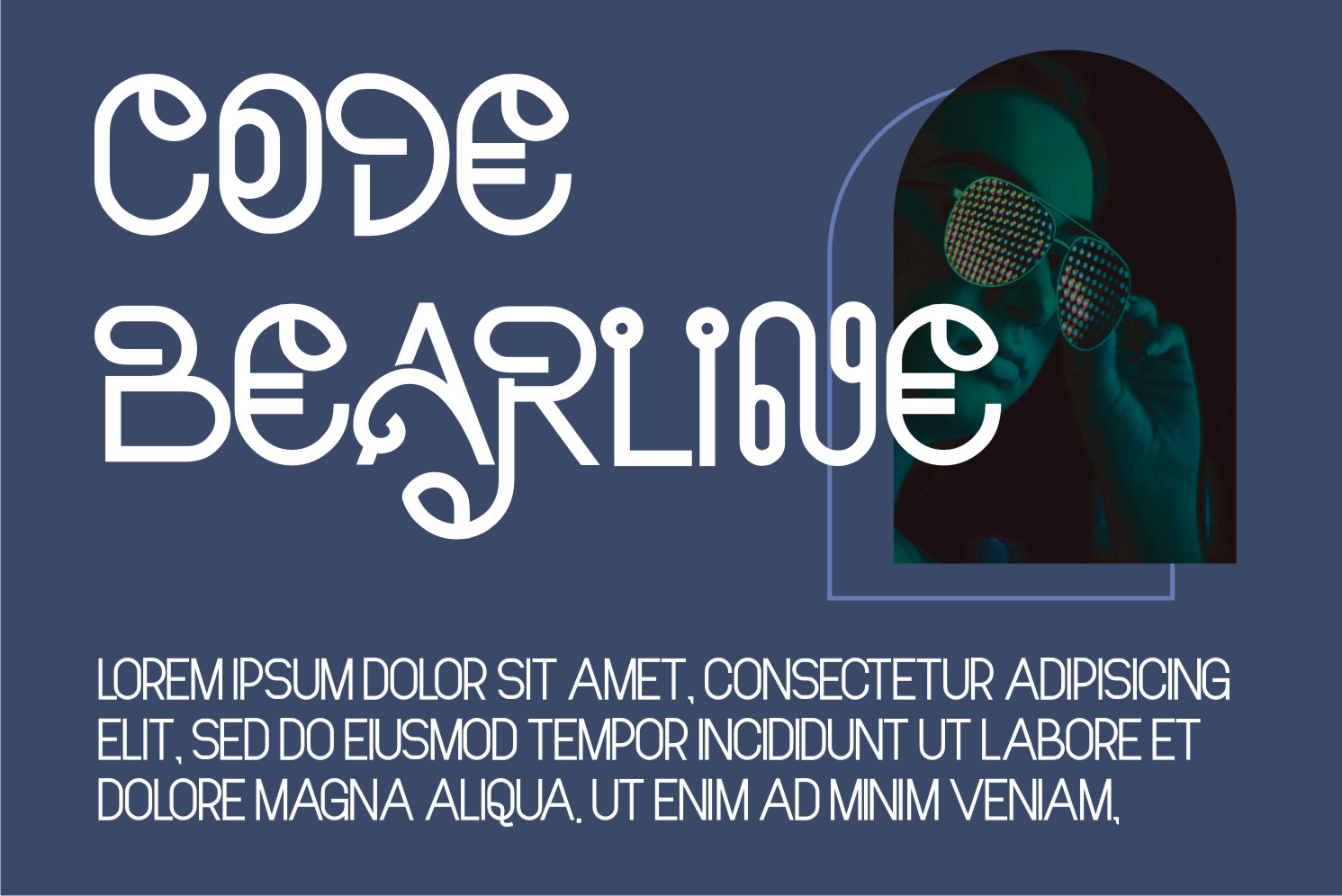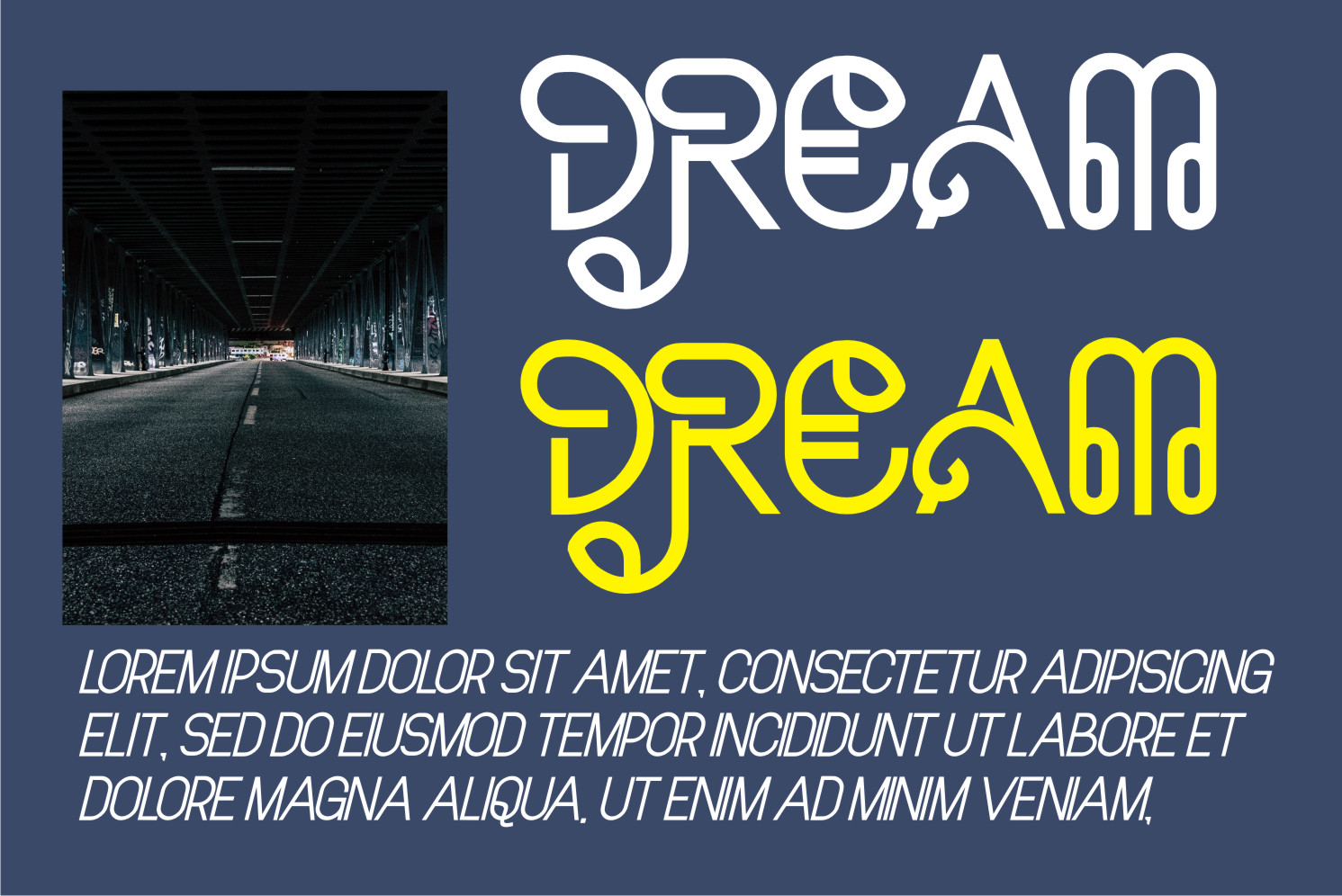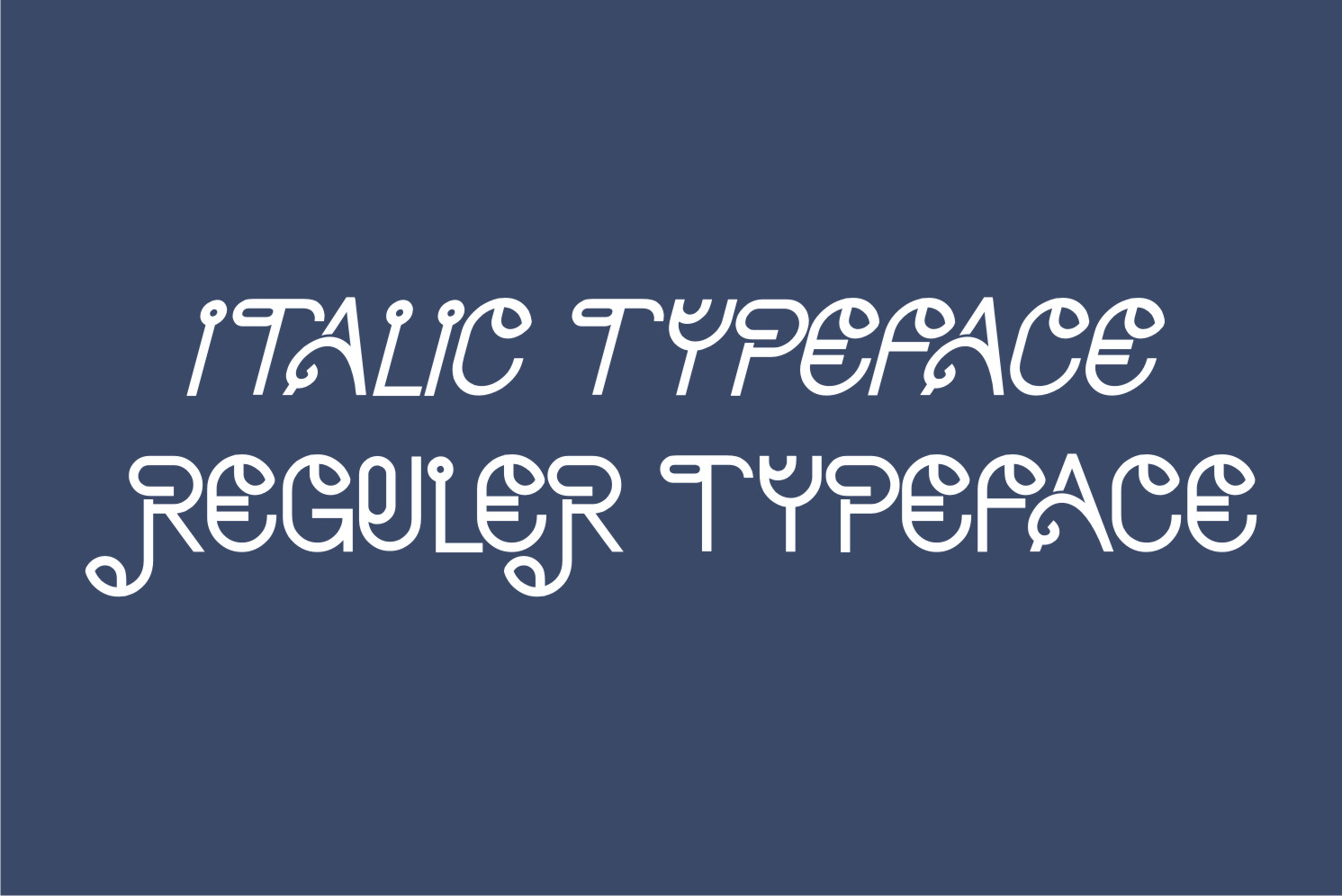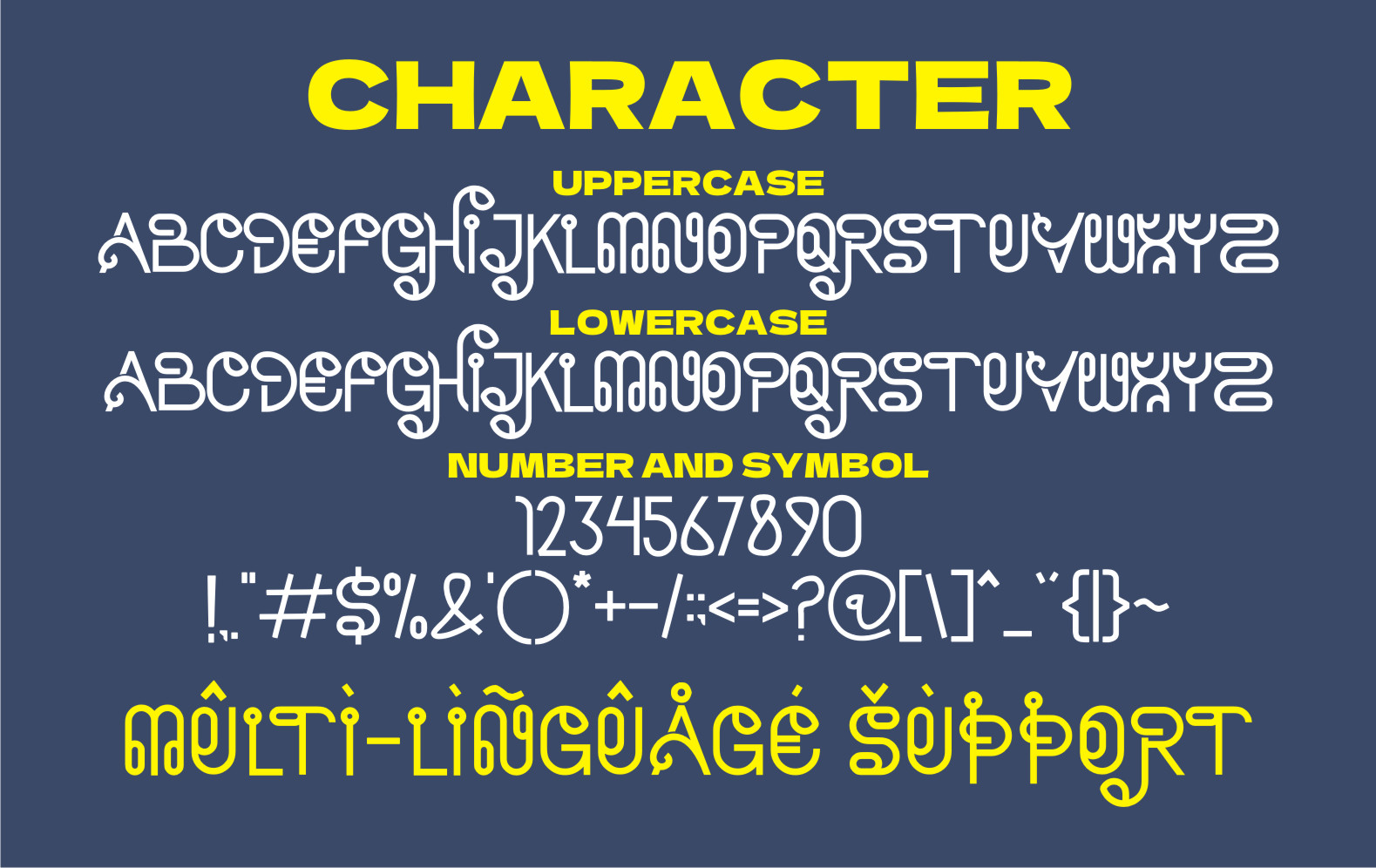
Sohries Font
Sohries Display Font
It’s a cool, modern and distinct display font. This font is suitable for designs such as t-shirts, sportswear, logos, advertisements, clothing, and more.